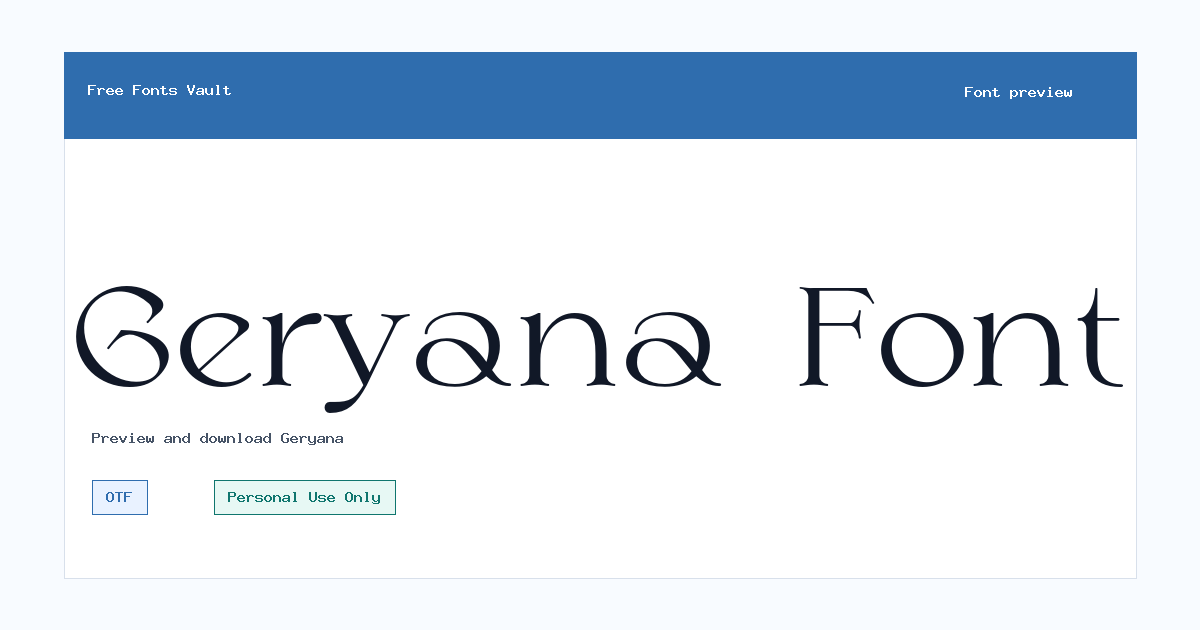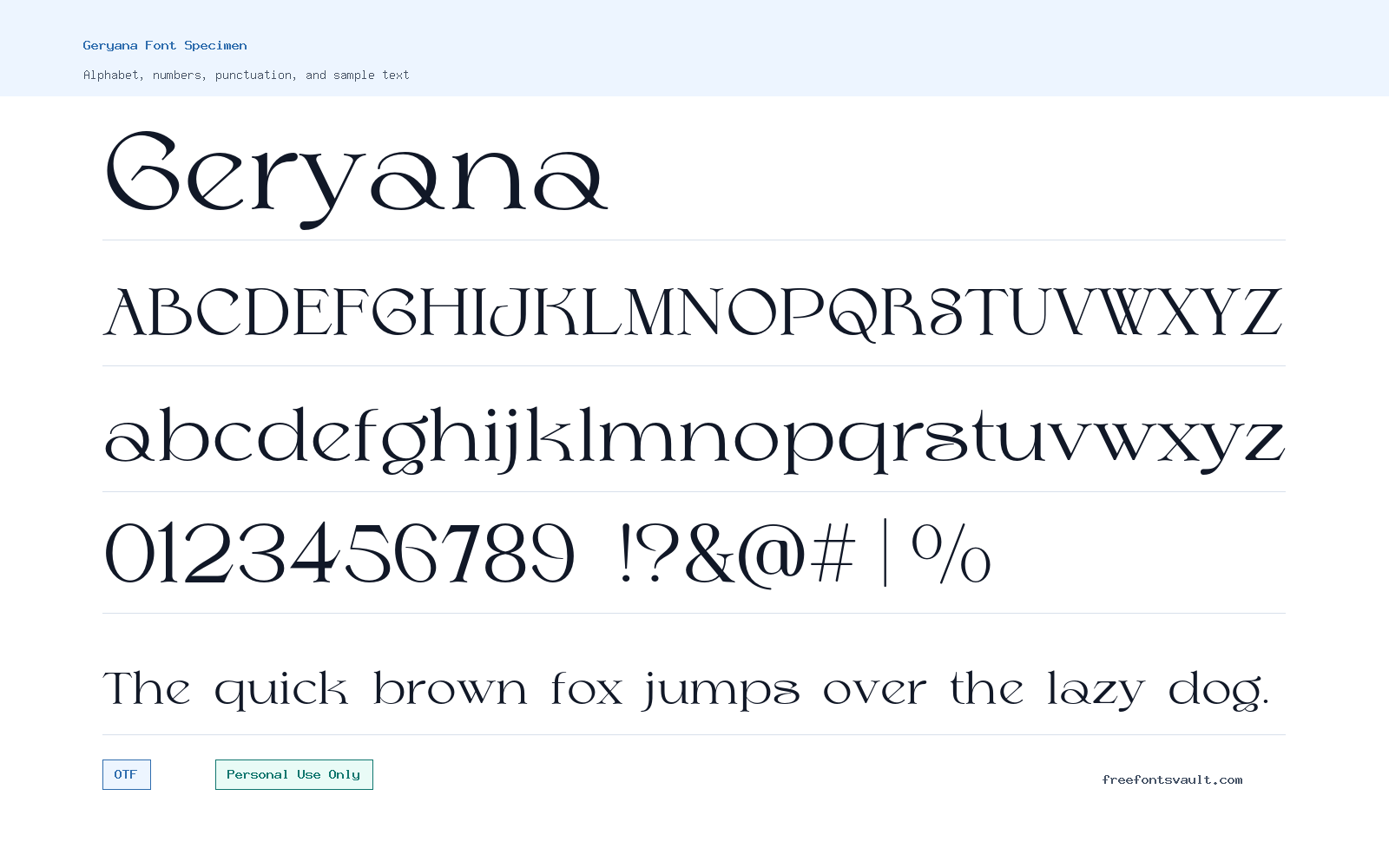
Geryana
Geryana Font
Geryana is a serif font supplied in OTF format, with a regular 400-weight style for personal-use projects. It is best approached as a display-friendly serif: preview it with your own words, test the spacing, and make sure the license fits your project before downloading.
About Geryana Font
Geryana has a serif structure, which makes it a better fit for titles, names, labels, invitations, poster text, social graphics, and other short pieces of copy where the letter shapes can stand out. Because only one regular style is listed, it works best when you build contrast through size, spacing, color, or pairing rather than relying on bold, italic, or multiple weights. Try it first in the font preview with uppercase, lowercase, numbers, and punctuation so you can see how the character set behaves in the exact words you plan to use.
For practical use, keep Geryana focused on headings and short text blocks before using it in longer reading settings. Serif display fonts can look polished at large sizes but may lose clarity when squeezed into small captions, dense paragraphs, or narrow mobile layouts. If you want to pair it with another font, use a clean sans serif or a quiet text serif for body copy so Geryana remains the visual accent. Download the OTF file if your software supports OpenType fonts, then install and test it in your design app before final export.
• Regular 400-weight serif style
• Personal-use headings, invitations, posters, and social graphics
• Short display text where a serif style can be tested at larger sizes
What style of font is Geryana?
Geryana is listed as a serif font with a regular 400-weight style.
Where does Geryana work best?
It is best tested for short display uses such as headings, invitations, posters, labels, and social media graphics rather than long body text.